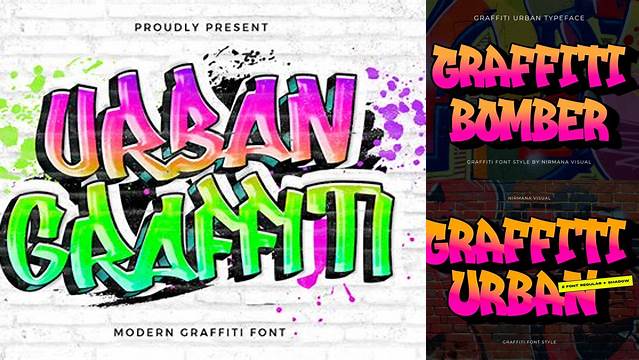
Graffiti fonts are a fantastic way to inject raw, urban energy into your designs. Whether you're working on a poster, a website, or a clothing design, a graffiti-style font can instantly add an edge and a unique visual appeal. This guide dives deep into the world of graffiti urban fonts, showing you where to find them, what to look for, and how to use them effectively in your projects.
What is a Graffiti Urban Font?
A graffiti urban font attempts to capture the essence of street art. These fonts often feature bold, irregular lines, dynamic letterforms, and a hand-drawn aesthetic. The goal is to mimic the look and feel of actual graffiti, bringing that authentic urban vibe to your digital or print creations. Key characteristics include:
- Bold and Chunky: Graffiti fonts tend to be thick and impactful, designed to grab attention.
- Irregular Lines: Instead of perfectly smooth curves, you'll often find jagged edges and inconsistent line weights, mirroring the spontaneity of street art.
- Dynamic Letterforms: Letters might tilt, overlap, or feature unique flourishes that set them apart from traditional typefaces.
- Hand-Drawn Feel: The best graffiti fonts look like they were created with a spray can or marker, adding to their authenticity.
When choosing a graffiti font, consider the overall tone and message of your project. Some fonts are more aggressive and chaotic, while others have a more playful or artistic vibe. Think about the context in which the font will be used and select one that aligns with your creative vision.
Where to Find Free Graffiti Urban Fonts
While Google Fonts might not be the first place you'd think to look for graffiti fonts, it does offer a few options that can work well, especially when paired with other design elements. The advantage of using Google Fonts is that they are incredibly easy to implement on websites and are guaranteed to be high-quality and free for commercial use. Although the selection of graffiti-specific fonts is limited, you can find some interesting display fonts that have a similar vibe. Plus, Google Fonts integrates seamlessly with Google Docs and other Google services, making it a convenient choice for many users.
5. 1001 Fonts
1001 Fonts is yet another great platform to discover free graffiti fonts. They have a user-friendly interface that allows for easy navigation and font previewing. A significant portion of their fonts is available under a free license, but always verify the terms for your specific usage to avoid any licensing issues. The site also offers a variety of other font styles, which can be useful for complementing your graffiti font with other text elements in your design.
Tips for Choosing the Right Graffiti Font
Selecting the perfect graffiti font for your project involves more than just finding one that looks cool. Here are some tips to help you make the right choice:
- Consider the Tone: Is your project edgy and aggressive, or more playful and artistic? Choose a font that matches the overall tone you're trying to convey.
- Readability Matters: While graffiti fonts are all about style, make sure the font is still readable, especially for longer text passages. Some fonts are better suited for headlines and short phrases.
By following these tips, you can harness the power of graffiti fonts to create stunning and impactful designs.